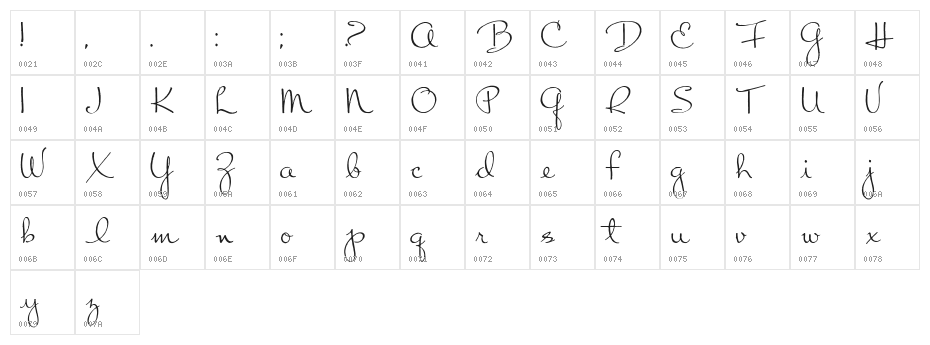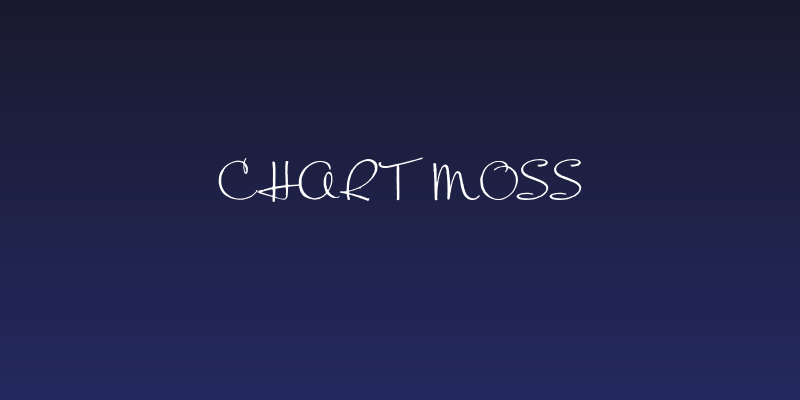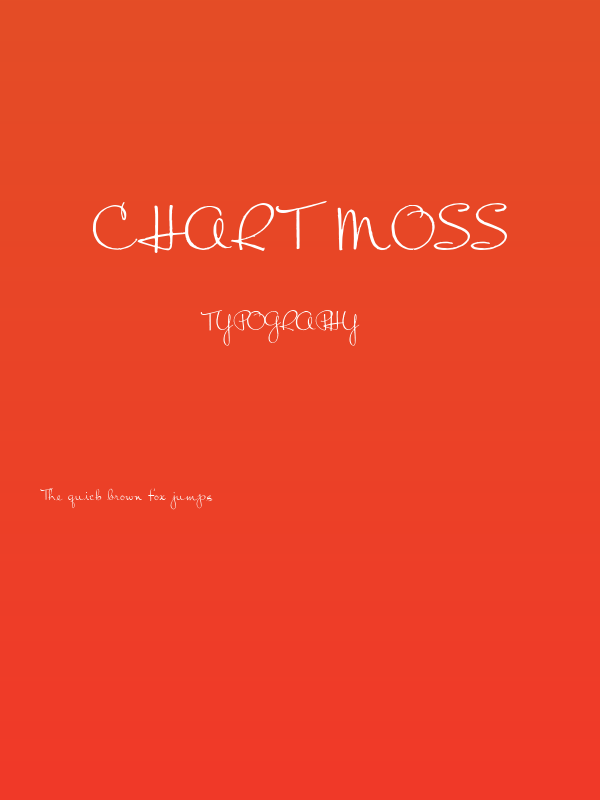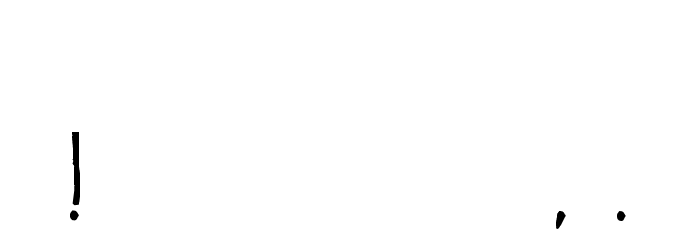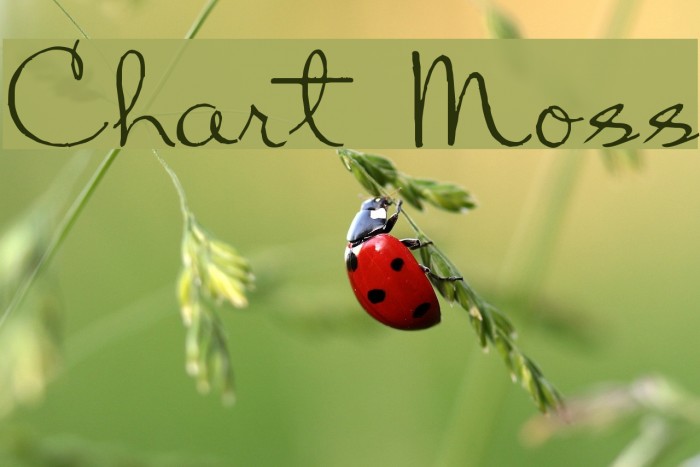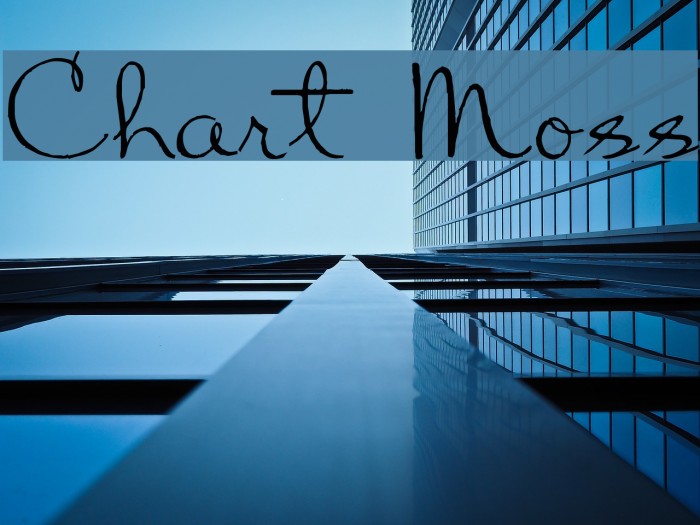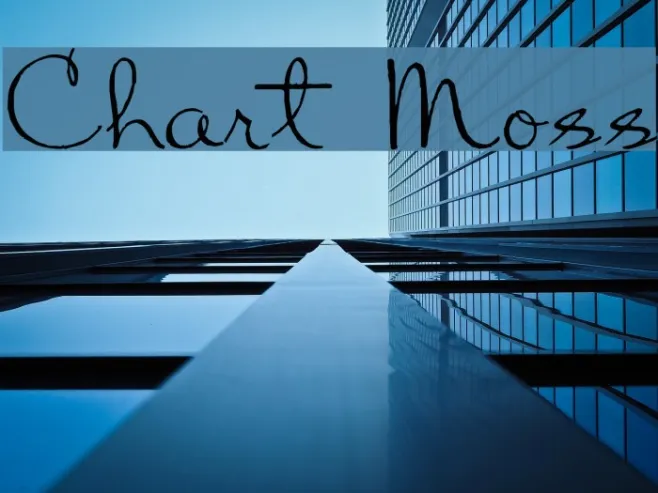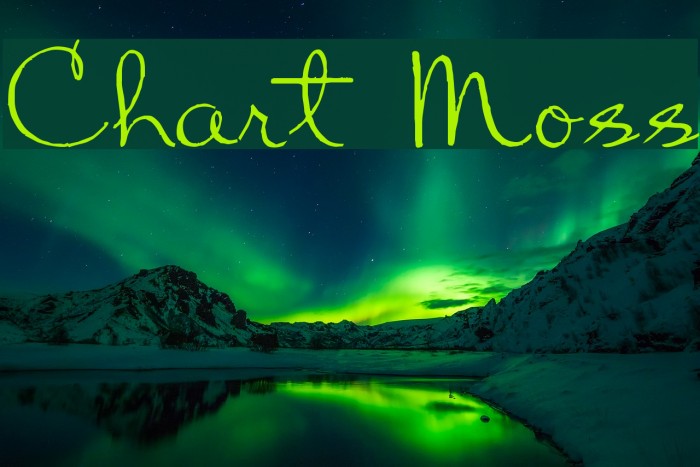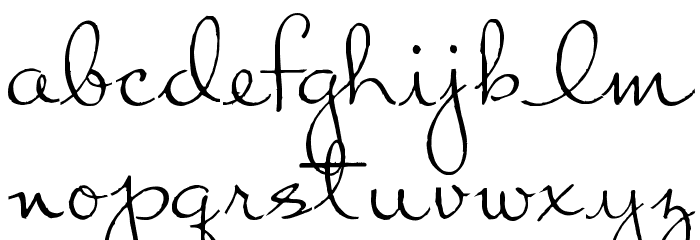
Chart Moss Font
Chart Moss Description
This font features a whimsical and flowing script style, characterized by its elegant and fluid strokes. The uppercase letters are distinct with a playful yet sophisticated flair, while the lowercase letters maintain a consistent cursive form that enhances readability. The font's design includes unique loops and swirls, particularly noticeable in letters like 'g', 'y', and 'z', adding a touch of creativity and charm. The special characters, such as the exclamation mark and period, are designed to complement the overall style, maintaining the same fluidity and elegance. This font is ideal for projects that require a personal and artistic touch, such as invitations, greeting cards, or branding materials.
| Proposed Projects | Ideal for invitations, greeting cards, branding, and artistic projects. |